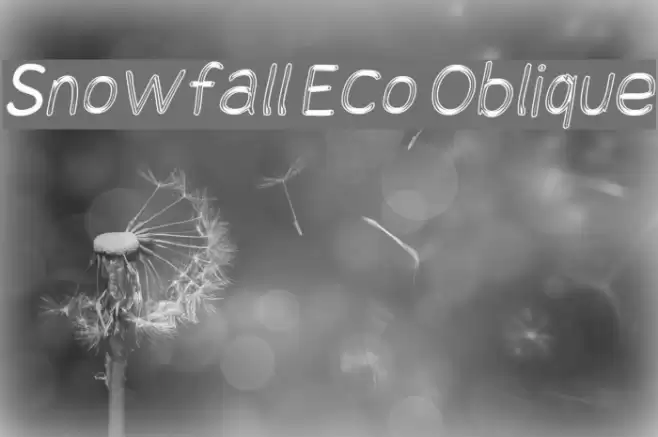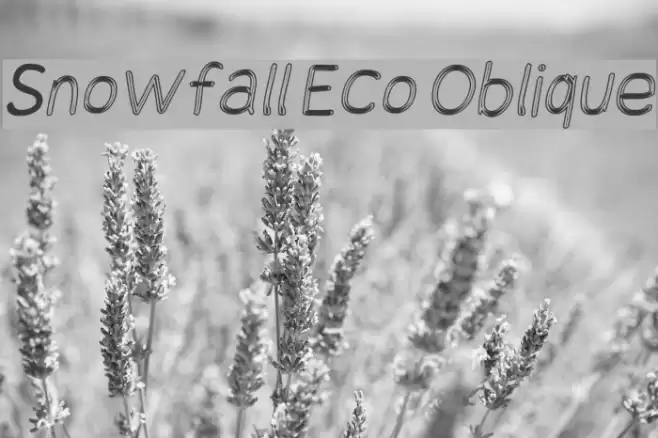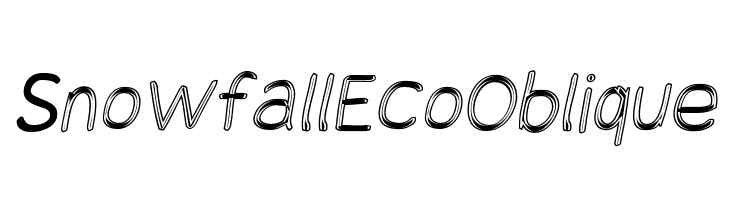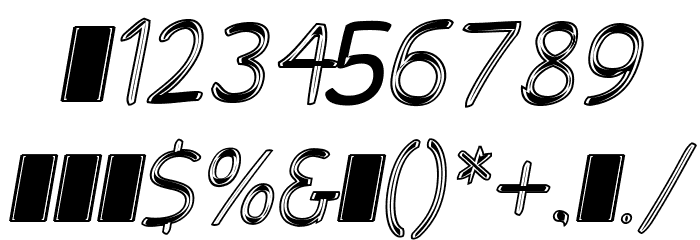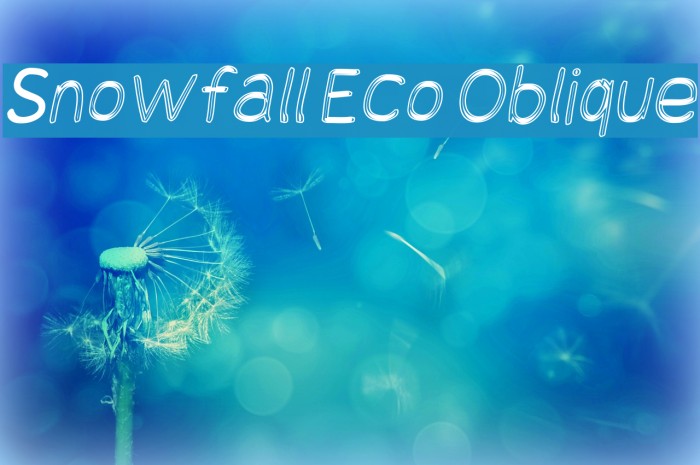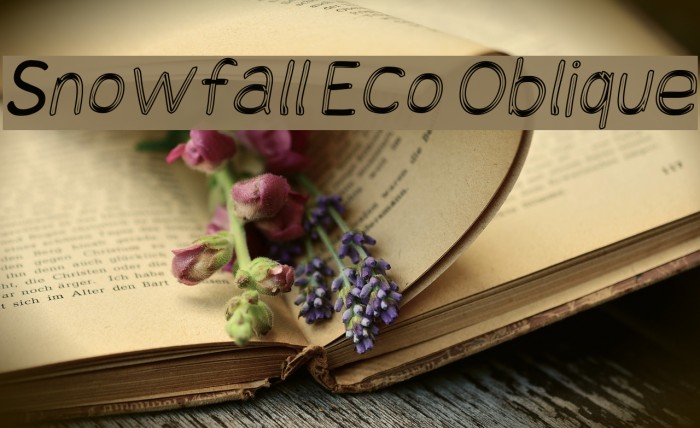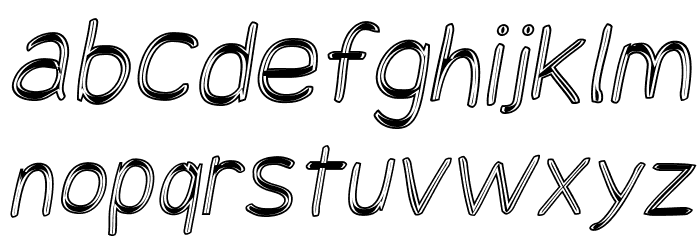
Snowfall Eco Oblique Font
Snowfall Eco Oblique Description
This font features an oblique style with a playful and dynamic appearance. The characters are outlined, giving them a hollow effect that adds a unique dimension to the text. The strokes are smooth and slightly curved, contributing to a casual and approachable feel. The uppercase and lowercase letters maintain a consistent style, while the numbers and special characters are designed to complement the overall aesthetic. This font's distinct outline and slanted orientation make it stand out, providing a modern twist to traditional letterforms.
A playful oblique font with outlined characters and a modern twist from Uncategorized fonts.